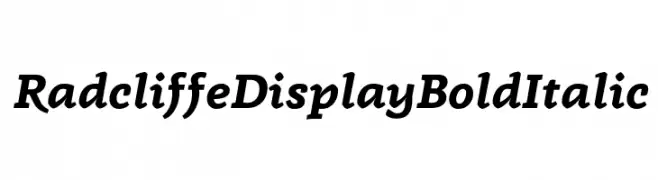
A sophisticated serif font with extra bold weight and italic style, perfect for display use.
A bold, italicized font with high contrast and dynamic slant.
( Fonts by Southype - Rodrigo Gonzalez - Personal-use only. For commercial use please contact owner. )
A digital, segmented font with a geometric, tech-inspired design.
( Fonts by Symbiotic Design - Doug Peters - Personal-use only. For commercial use please contact owner. )
A bold, dotted display font with a modern, geometric style.
( Fonts by blazardsky - Niccolò Agnoletti - Personal-use only. For commercial use please contact owner. )
A modern, rounded, and sharp font with elongated, narrow characters.
( Fonts by blazardsky - Niccolò Agnoletti - Personal-use only. For commercial use please contact owner. )
A bold, geometric font with sharp angles and a modern aesthetic.
( Fonts by Ash Pikachu Font - Tom Oetken - Personal-use only. For commercial use please contact owner. )
A segmented, digital display-inspired font with a geometric and mechanical style.
( Fonts by Attype Studio )
A playful, paw-themed display font with bold, rounded characters.
( Fonts by BeauType Studio - beautique.vn - Personal-use only. For commercial use please contact owner. )
A bold, high-contrast serif display font with elegant and dramatic features.